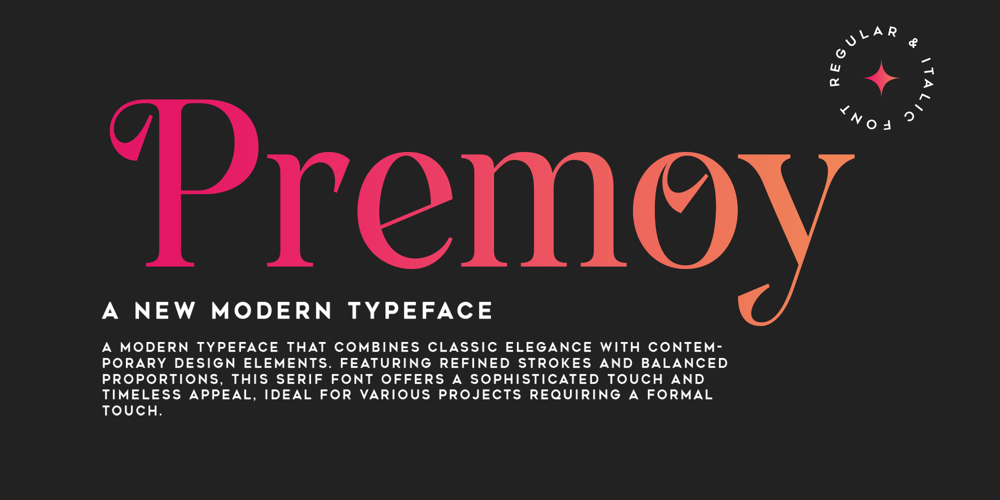
Premoy
Premoy font
Premoy Font Family was designed by khaidir and published by Gatype. Premoy contains 2 styles and family package options. Premoy is a modern serif font packaged in a modern and classy style, complete with your OpenType feature access to access a large selection of alternative fonts and bindings, the choice of fonts you like from large and small font variations for a luxurious and elegant look.This typeface has been enriched with additional alternate characters of up to 528 glyphs. Hope it helps to capture the soul of any design. Finally, there are no words that can be said other than “Success and enjoy.Premoy is coded with PUA Unicode, which allows full access to all additional characters without having to design any special software. Mac users can use Font Book, and Windows users can use Character Map to view and copy any additional characters to paste into your favorite text editor/app.How to access all alternative characters using Adobe Illustrator:https://www.youtube.com/watch?v=XzwjMkbB-wQDesigners: khaidirShow Less